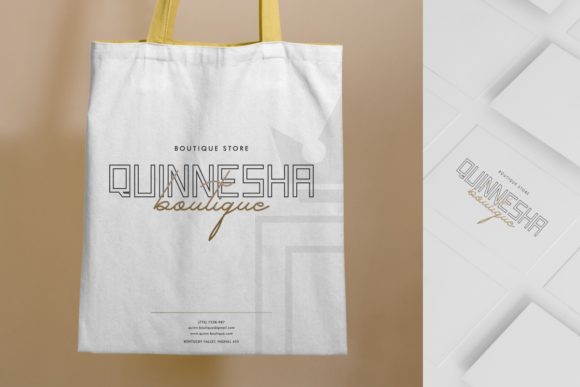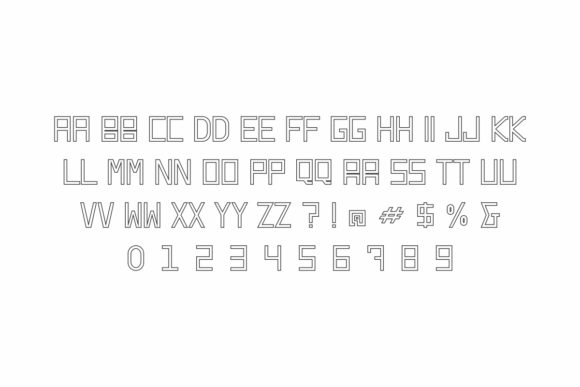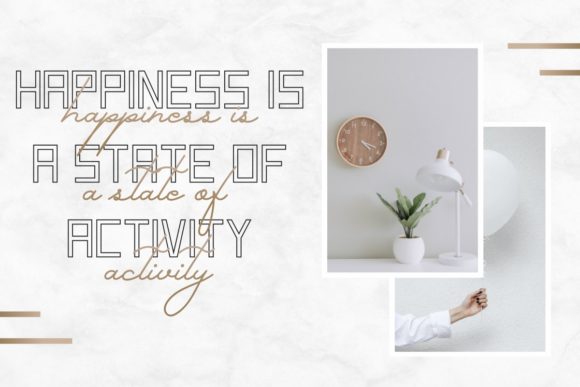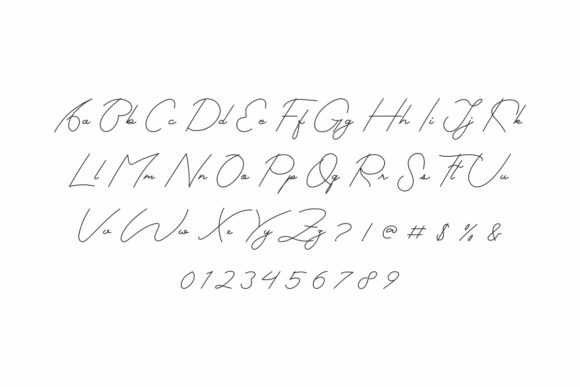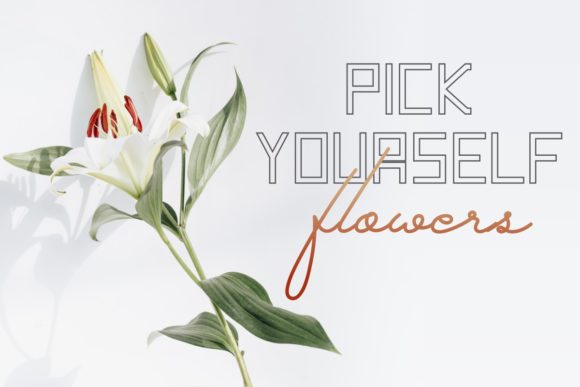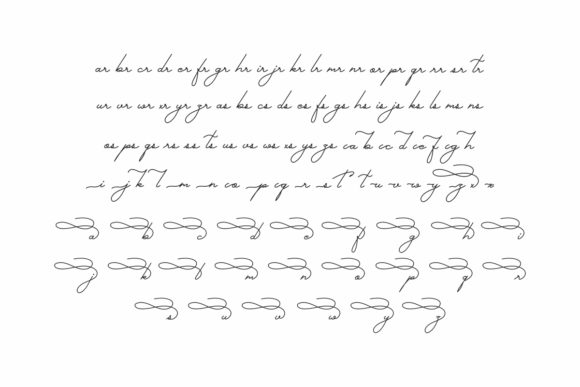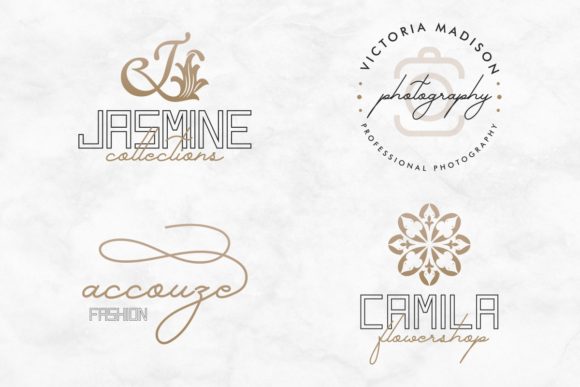
Gallery Dwiarna Font
About Gallery Dwiarna Font
Gallery Dwiarna is a font family with two different styles that work so well together. The complementary contrast between the duo of fonts will bring a sense of both professionalism and personality to your design.